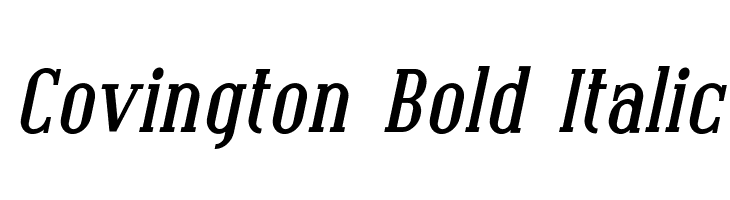
Bold, italicized serif font with a dynamic and elegant style.
A bold, italic, and condensed font with a modern yet classic style.
A bold, italic serif font with high contrast and dynamic elegance.